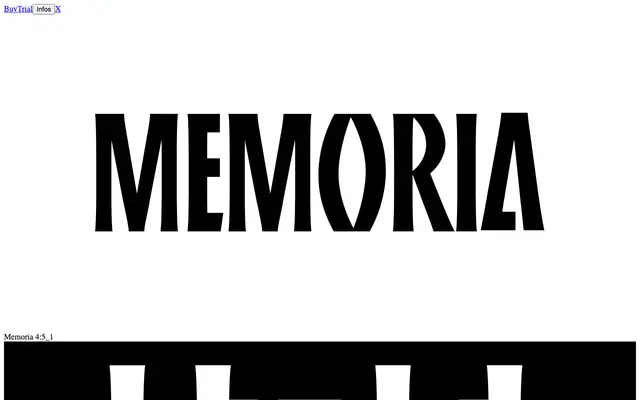
Memoria
OTT Foundry · Arnaud Chemin
A contemporary reimagining of primitive broad-nib stone-cut lettering, drawn from Swiss Germanic inscription traditions and tombstone epigraphy.
Designed by Arnaud Chemin, Memoria takes its uppercase model from a type specimen in Schrift + Symbol in Stein, Holz und Metall (1977), an archetypal form passed down through stone-carving craft. A newly added lowercase set expands its range, with condensed forms counterbalanced by circular 'O/o' constructions and up to 20 stylistic sets of playful alternates. The result sits between geometric order and the raw tension of the hand, well suited to dramatic titles, posters, album covers and expressive identity work.
Memoria is rooted in rustic broad-nib lettering and tombstone epigraphy with strong blackletter influence, but its condensed modular forms, stylistic alternates and all-caps stone-cut origins place it firmly in the display category rather than traditional blackletter.